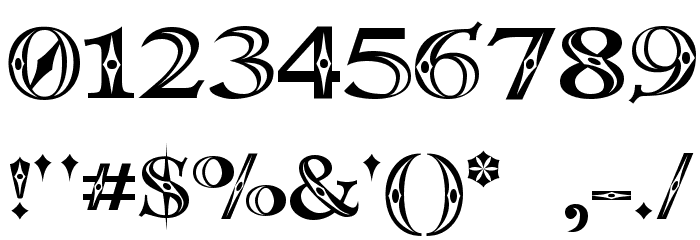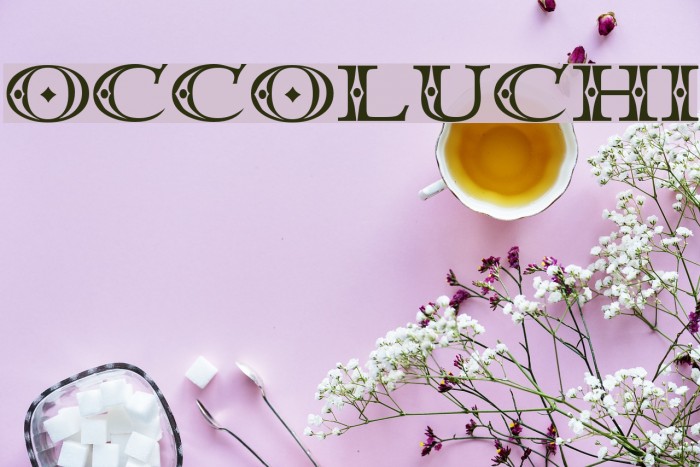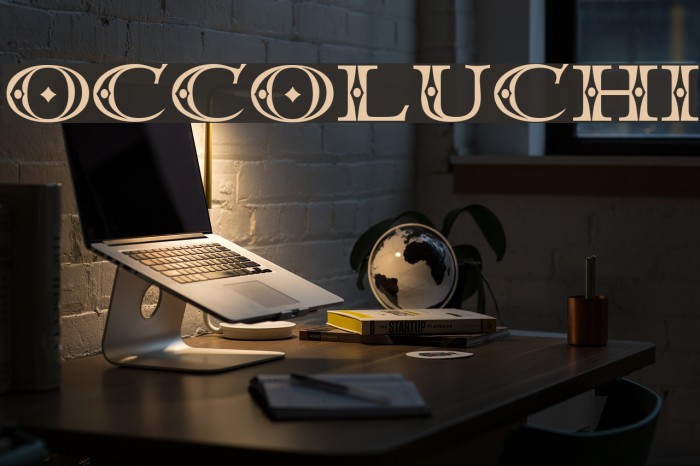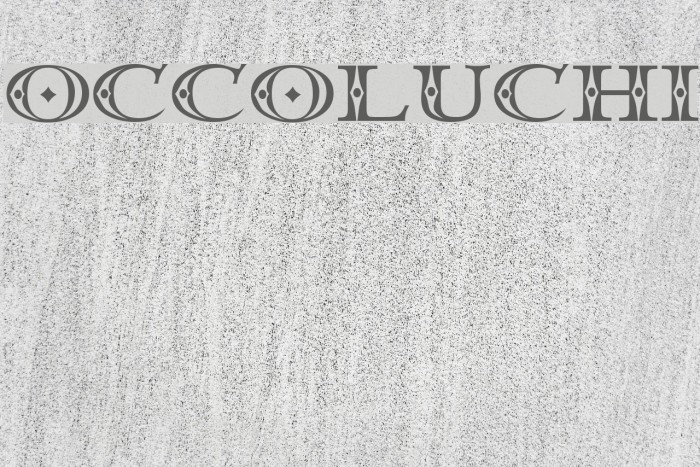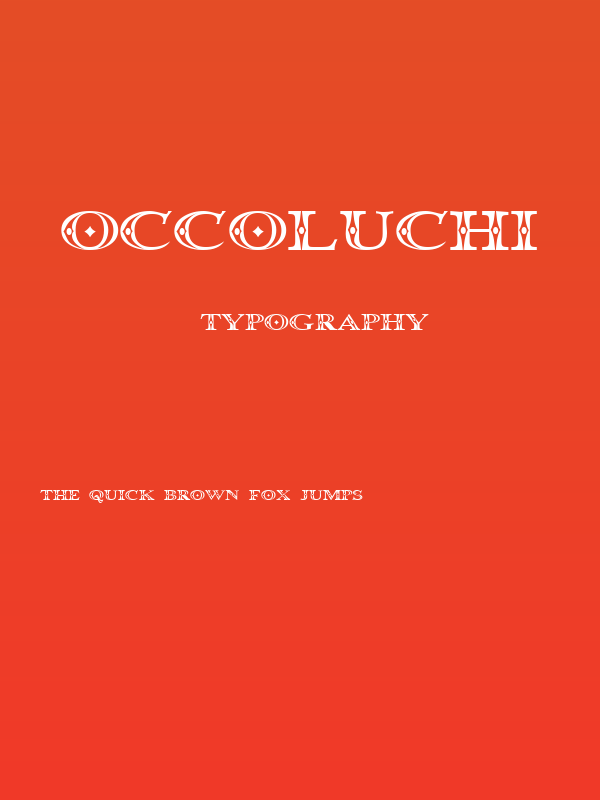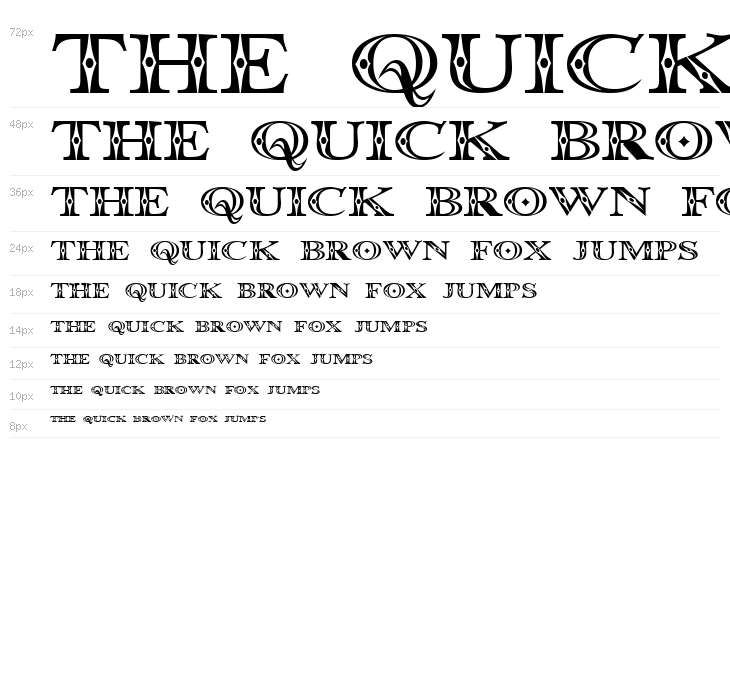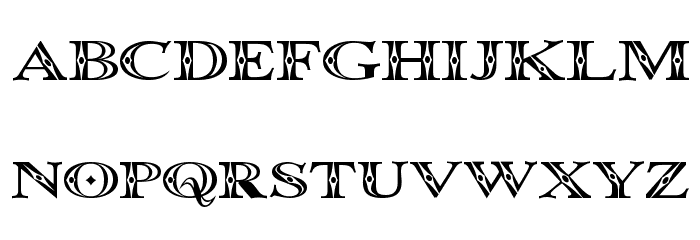
Occoluchi Font
Occoluchi Description
This font features a unique decorative style with intricate patterns within each character, giving it a distinct and artistic appearance. The uppercase letters are bold and striking, with symmetrical embellishments that add a touch of elegance. The numerals and special characters follow the same ornate design, making them stand out. The overall look is both vintage and modern, suitable for projects that require a touch of sophistication and creativity. The font's detailed design makes it ideal for headlines, logos, and other display purposes where visual impact is essential.
| Proposed Projects | Ideal for branding, poster design, album covers, and any project needing a decorative and artistic touch. |